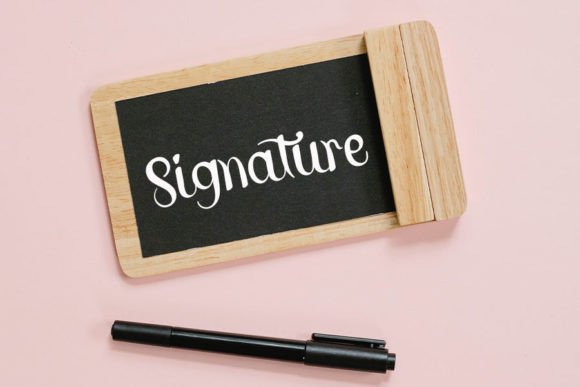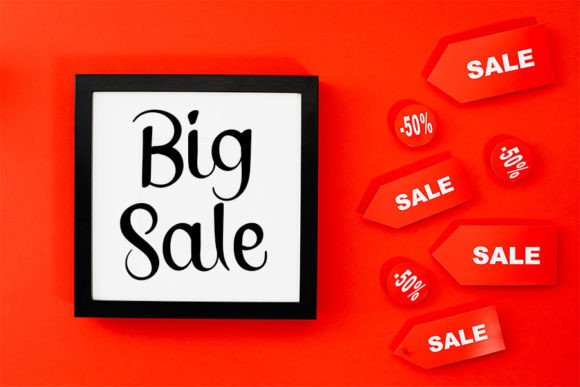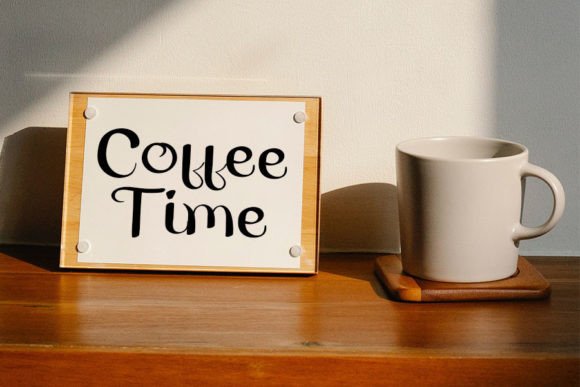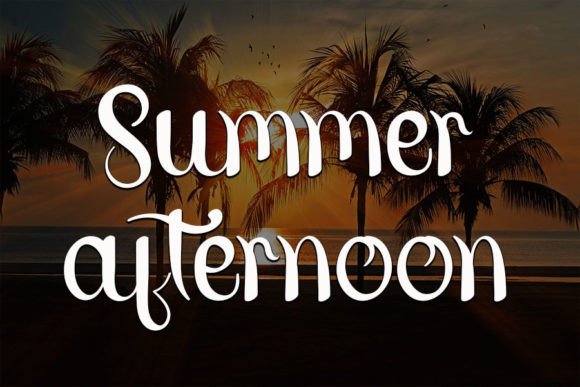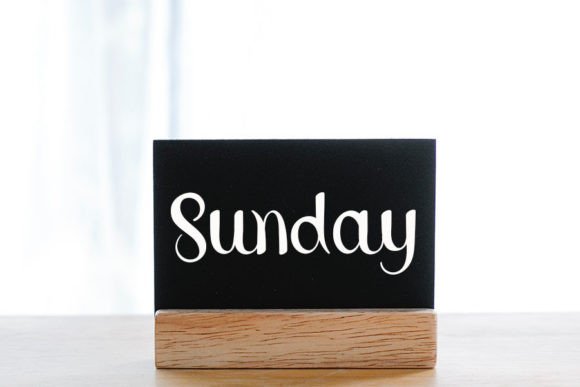
Introducing Angelina Font: The Perfect Blend of Elegance and Quirkiness
Are you a designer, crafter, or DIY enthusiast looking for a font that can add a touch of elegance and playfulness to your projects? Look no further than Angelina Font, a beautiful handwritten font that is sure to capture your heart. In this article, we’ll dive into the world of Angelina Font, exploring its features, uses, and benefits, and why it’s the perfect fit for your logos, branding, social media posts, and crafty DIY projects.
What is Angelina Font?
Angelina Font is a carefully crafted handwritten font that exudes elegance and sophistication. With its clean lines and a dash of quirkiness, this font is perfect for those who want to add a personal touch to their designs. Whether you’re creating a logo, branding materials, social media posts, or DIY projects, Angelina Font is the ideal choice.
Key Features of Angelina Font
So, what makes Angelina Font so special? Here are some of its key features:
- Handwritten with love: Angelina Font is carefully handcrafted with attention to detail, giving it a personal and unique touch.
- Clean and elegant: The font boasts clean lines and a sophisticated feel, making it perfect for a wide range of design applications.
- Quirky and playful: Angelina Font has a playful side, making it ideal for DIY projects, social media posts, and other creative endeavors.
- Versatile: This font can be used for various design projects, from logos and branding to social media graphics and crafty DIY projects.
Uses of Angelina Font
Angelina Font is an incredibly versatile font that can be used in a variety of design applications. Here are some ideas to get you started:
- Logos and branding: Create a lasting impression with a custom logo or branding materials that showcase your personality and style.
- Social media posts: Add a touch of elegance and quirkiness to your social media posts, making them stand out in a crowded feed.
- Crafty DIY projects: Use Angelina Font to add a personal touch to your DIY projects, such as handmade cards, gift tags, and more.
- Stationery and invitations: Create beautiful stationery, invitations, and greeting cards that showcase your unique style.
Benefits of Using Angelina Font
So, why choose Angelina Font for your design projects? Here are some benefits you can expect:
- Unique and personalized: Angelina Font adds a personal touch to your designs, setting you apart from the crowd.
- Elegant and sophisticated: This font exudes elegance and sophistication, making it perfect for high-end designs.
- Easy to read: Angelina Font is clean and easy to read, ensuring that your message is conveyed clearly.
- Time-saving: With Angelina Font, you can create stunning designs quickly and efficiently, saving you time and effort.
Tips for Using Angelina Font
To get the most out of Angelina Font, here are some tips to keep in mind:
- Experiment with colors: Angelina Font looks great in a variety of colors, so don’t be afraid to experiment and find the perfect hue for your design.
- Mix and match: Combine Angelina Font with other fonts or design elements to create a unique and eye-catching design.
- Pay attention to spacing: Make sure to adjust the spacing between letters and words to ensure that your design looks balanced and visually appealing.
Angelina Font is a beautiful handwritten font that is sure to capture your heart. With its elegant and quirky feel, this font is perfect for designers, crafters, and DIY enthusiasts who want to add a personal touch to their projects. Whether you’re creating logos, branding materials, social media posts, or crafty DIY projects, Angelina Font is the ideal choice. So why wait? Give Angelina Font a try today and take your designs to the next level!